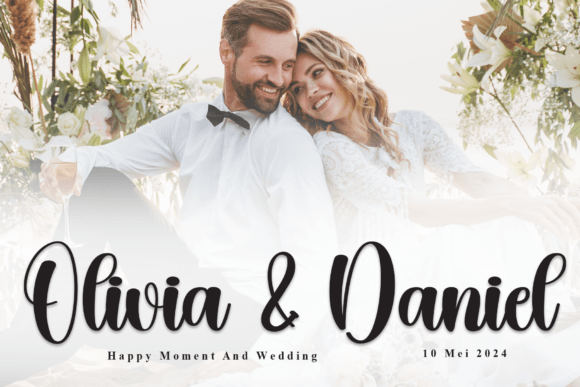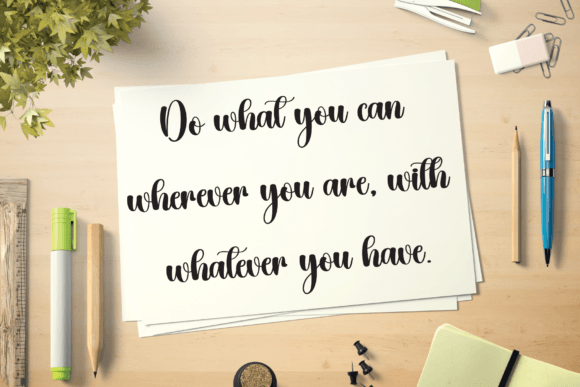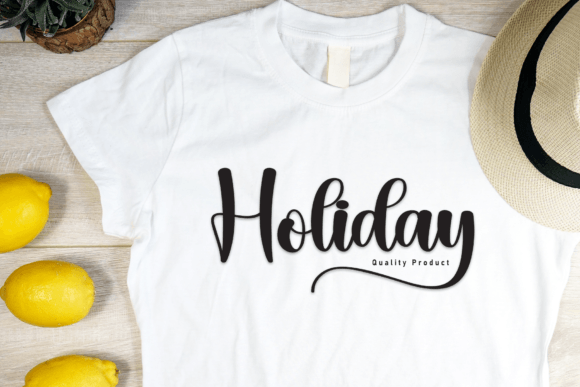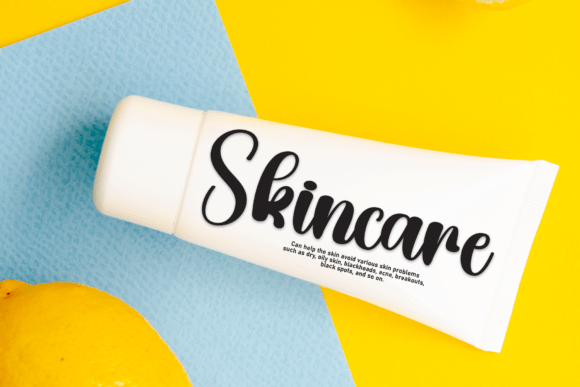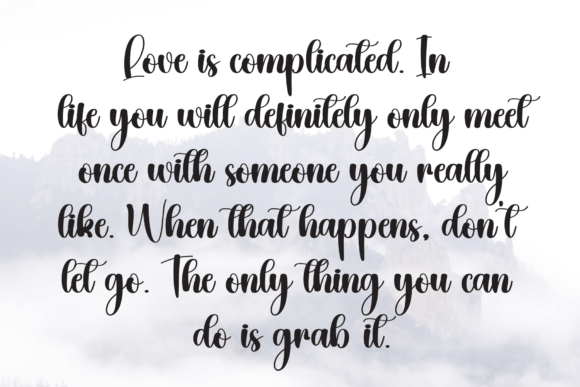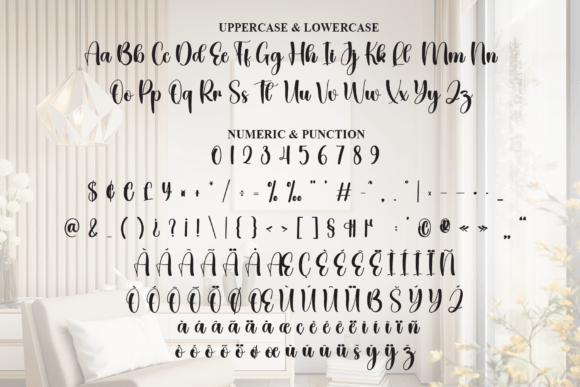
Introducing Hearty Font: The Epitome of Elegance and Sophistication
In the realm of typography, few fonts manage to strike a balance between modernity and charm. Hearty Font is one such gem that effortlessly exudes elegance and personality, making it an ideal choice for designers and crafters seeking to elevate their projects. This modern and charming handwritten font is designed to add a touch of sophistication and warmth to upscale invitations, personal branding, and chic editorial designs.
The Characteristics of Hearty Font
Hearty Font boasts graceful, flowing strokes that dance across the page, imbuing any text with a sense of movement and fluidity. Its sophisticated character is evident in its carefully crafted letterforms, which showcase a deep understanding of typographic nuances. The font’s modern charm lies in its ability to blend traditional elegance with contemporary flair, making it a versatile choice for a wide range of design applications.
Perfect for Upscale Invitations
When it comes to creating invitations for special occasions, the font used can make all the difference. Hearty Font is specifically designed to add a touch of luxury and refinement to any invitation, whether it’s a wedding, gala, or formal event. Its elegant strokes and sophisticated character ensure that your invitations stand out from the crowd, setting the tone for an unforgettable experience.
Elevate Your Personal Branding with Hearty Font
In today’s competitive market, establishing a strong brand identity is crucial. Hearty Font can help you achieve this goal by adding a touch of warmth and sophistication to your branding materials. From business cards to letterheads, this font is perfect for creating a cohesive and polished visual identity that reflects your brand’s values and personality.
Chic Editorial Designs with Hearty Font
Hearty Font is also an excellent choice for editorial designs, such as magazines, blogs, and newspapers. Its modern charm and elegant strokes make it perfect for headlines, subheadings, and body copy. The font’s versatility ensures that it can be used in a variety of design contexts, from fashion and lifestyle publications to literary magazines and online blogs.
Why Choose Hearty Font?
With so many fonts available, why choose Hearty Font? Here are just a few reasons why designers and crafters are falling in love with this beautiful font:
- Elegance and sophistication: Hearty Font exudes refinement and luxury, making it perfect for high-end designs.
- Versatility: This font can be used in a wide range of design applications, from invitations to editorial designs.
- Modern charm: Hearty Font’s unique blend of traditional elegance and contemporary flair makes it a standout choice.
- Easy to read: Despite its elegant strokes, Hearty Font remains highly legible, making it perfect for body copy and headlines.
Tips for Using Hearty Font
To get the most out of Hearty Font, here are a few tips to keep in mind:
- Use it sparingly: Hearty Font is a statement font, so use it sparingly to add emphasis and elegance to your designs.
- Experiment with font sizes: Hearty Font looks stunning in a variety of font sizes, from large headlines to smaller body copy.
- Pair it with complementary fonts: Hearty Font pairs beautifully with sans-serif fonts, such as Arial or Helvetica, to create a striking contrast.
In conclusion, Hearty Font is a modern and charming handwritten font that is sure to elevate your designs. Its elegant strokes, sophisticated character, and versatile nature make it perfect for upscale invitations, personal branding, and chic editorial designs. Whether you’re a designer or crafter, Hearty Font is an excellent choice for anyone seeking to add a touch of refinement and luxury to their projects.